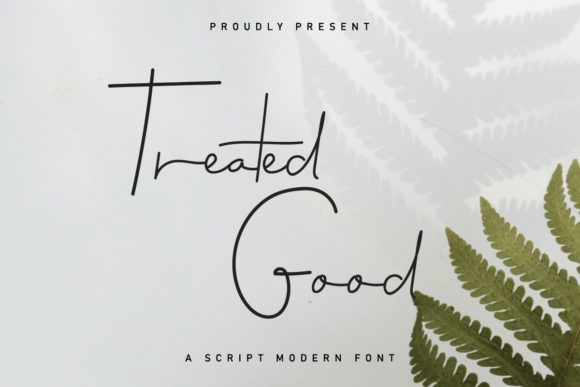
Prepare to be amazed by Treated Good Font, a captivating script font family that exudes vintage charm and modern elegance. Step into a world of timeless aesthetics and let your designs radiate with a touch of history and sophistication.
Crafted by the skilled hand of EdricStudio, Treated Good Font is not just a collection of letters; it's an invitation to embark on a journey through time. Each character carries the weight of nostalgia, whispering tales of eras gone by. Yet, within its vintage soul lies a modern spirit, ready to elevate your designs to new heights.
With its sweeping curves, delicate strokes, and authentic imperfections, Treated Good Font captures the essence of handwritten artistry. Imagine your designs adorned with this font, oozing with charm and personality. Whether you're creating logos, branding materials, invitations, or social media posts, Treated Good Font will transform your words into visual masterpieces.
But Treated Good Font is more than just a pretty face. Its versatility extends far beyond the realm of vintage design. Experiment with it in contemporary settings and watch it effortlessly blend with modern aesthetics. Its timeless appeal ensures that your designs will remain relevant and captivating, transcending the boundaries of time.
Whether you're a seasoned designer or just starting out, Treated Good Font is the perfect addition to your creative arsenal. Its user-friendly nature makes it accessible to all skill levels, allowing you to create stunning designs with ease. Trust us, once you experience the magic of Treated Good Font, you'll wonder how you ever designed without it.
So, embrace the allure of Treated Good Font and embark on a creative journey like never before. Let your designs speak volumes, evoking emotions and captivating audiences with their timeless beauty. Treated Good Font is more than just a font; it's an experience that will leave an indelible mark on your creative endeavors.